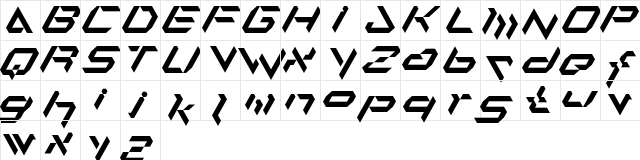
alfamesh001 Regular Free Font
alfamesh001 Regular
Designer: nevvgeneva
Design Context for alfamesh001
alfamesh001 is a composed and adaptable typeface that performs quietly and consistently across a wide range of design contexts.
Who designed the alfamesh001 Regular font?